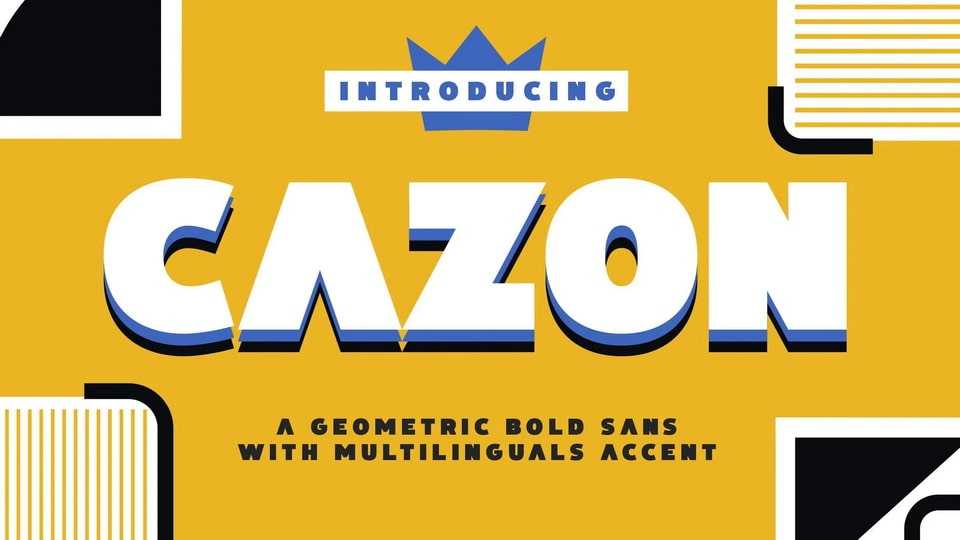
Download Cazon font, a bold geometric sans serif typeface suitable for your playful theme of your project. Cazon is great for creating eye-catching headlines and logos, applicable for any type of graphic design web, print, motion graphics and so on.
Designer: Drizy Studio